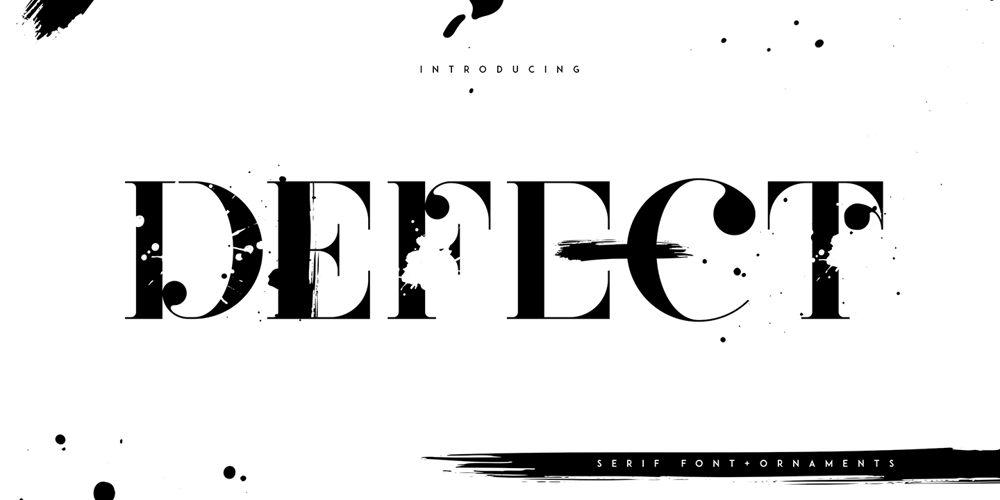
Defect VP Font Family was designed by Vladimir Fedotov, Plamen Petrov and published by VP Creative Shop. Defect VP contains 2 styles and family package options. Introducing Defect – Creative Serif Font + OrnamentsDefect is elegant and grunge font loaded with ligature glyphs, alternates, ornaments and multilingual support to enchant your next project. Very versatile fonts that works great in large and small sizes.Defect is perfect for branding projects, home-ware designs, product packaging, magazine headers – or simply as a stylish text overlay to any background image.–Uppercase